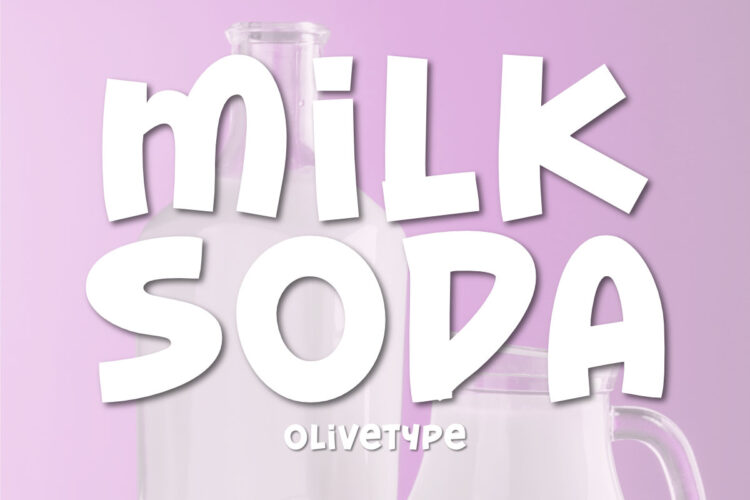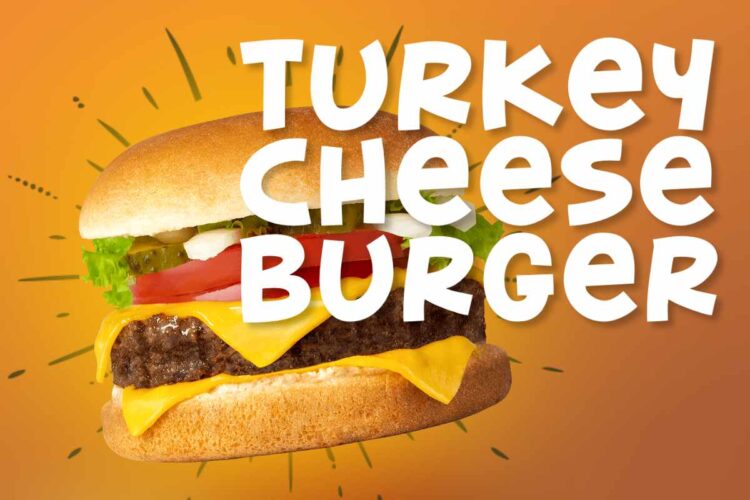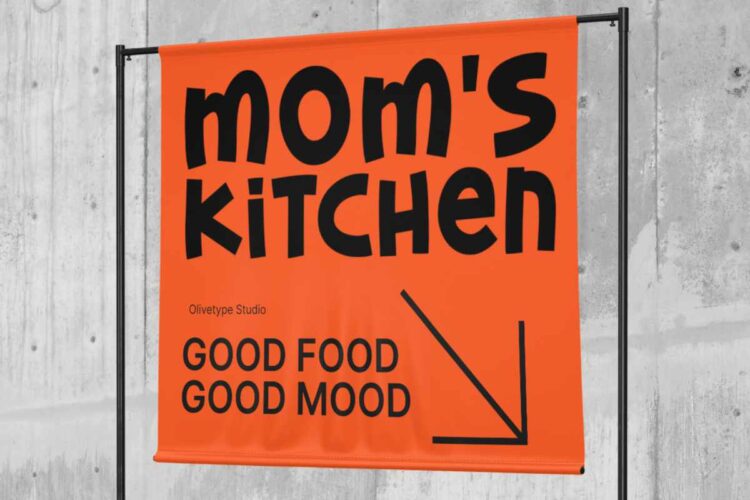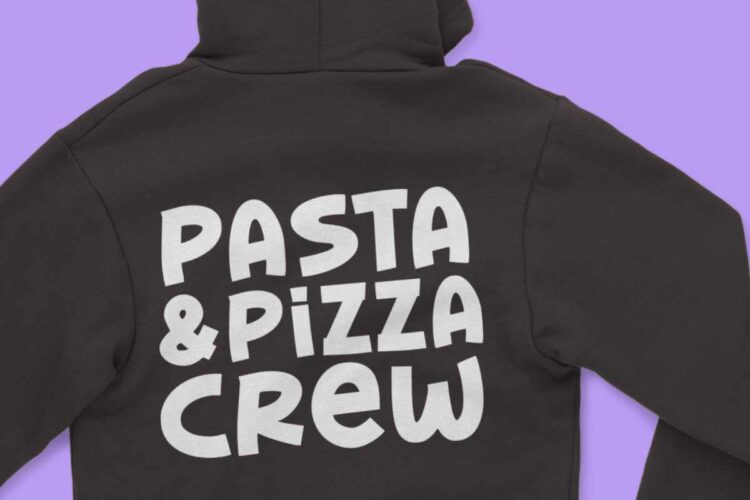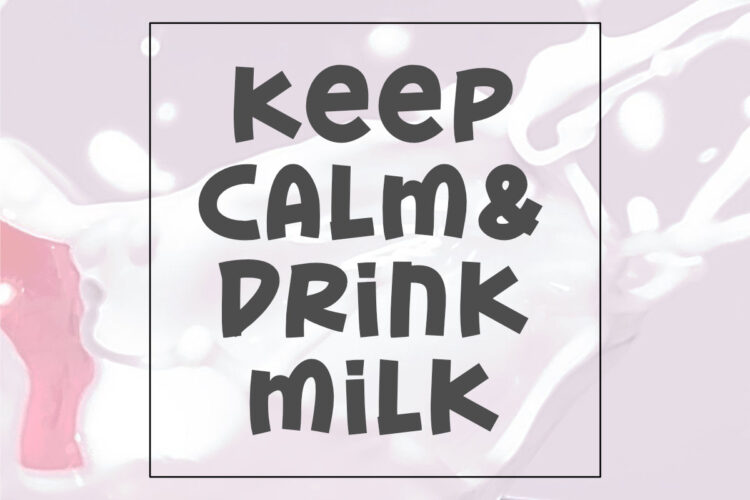
Milk Soda is an all-caps display typeface that’s bold, fun, and playful. It’s clean and versatile, making it a perfect addition to any designer’s kit. Packed with personality, this font screams out loud. Suitable for headlines, logos, and more!